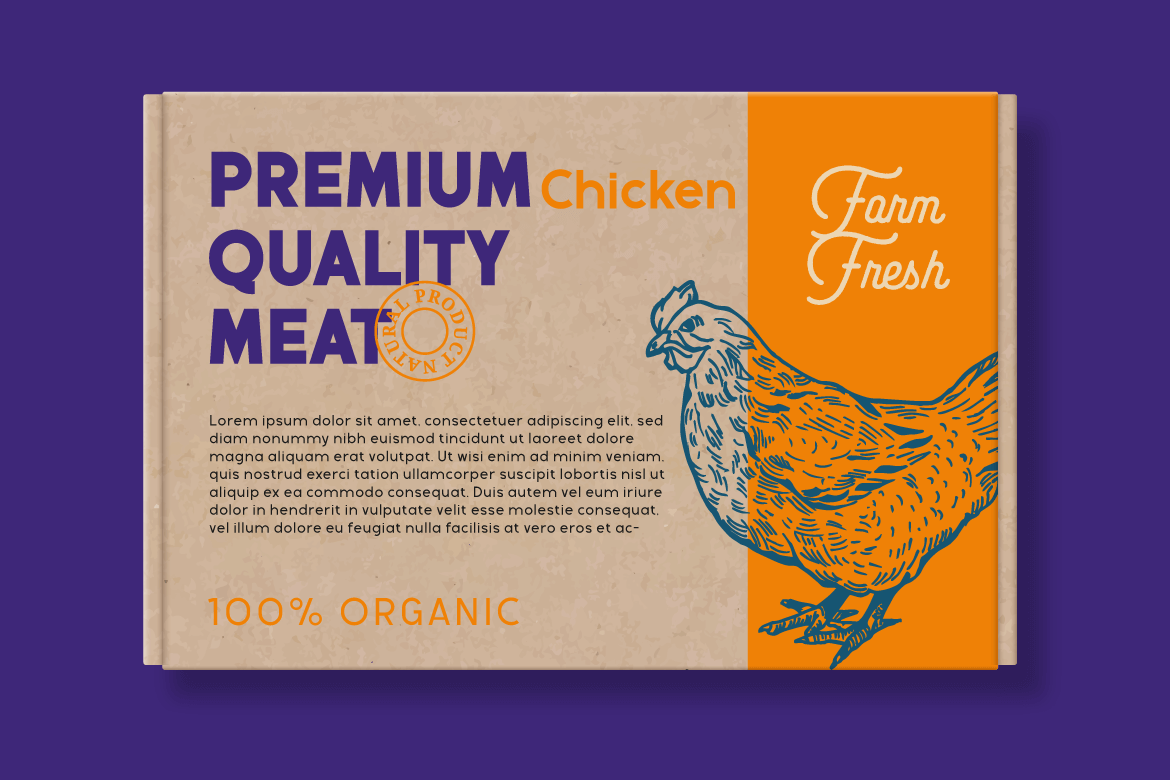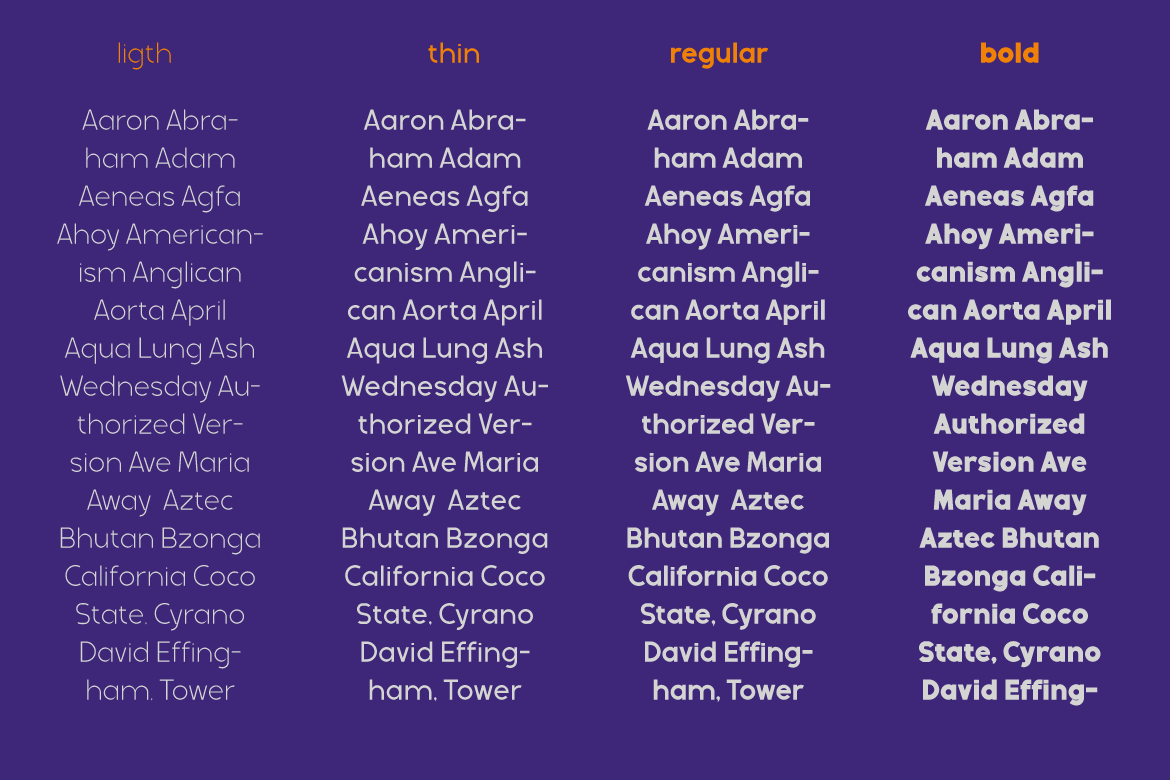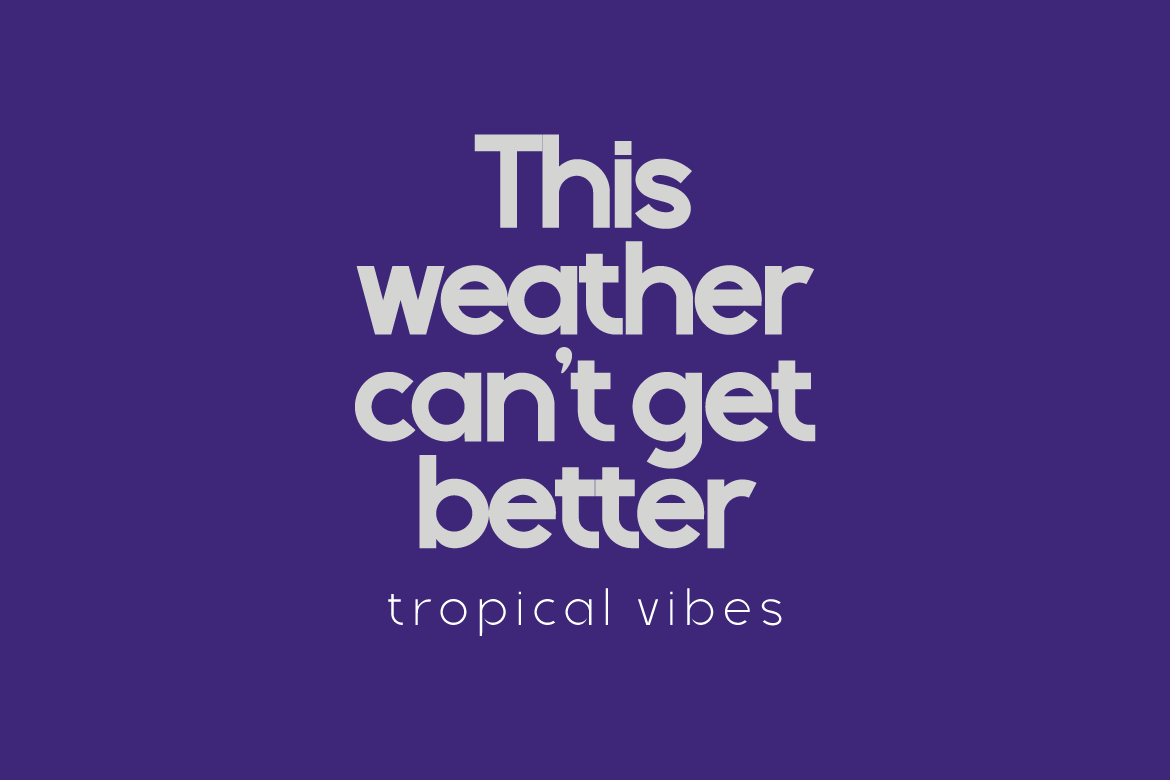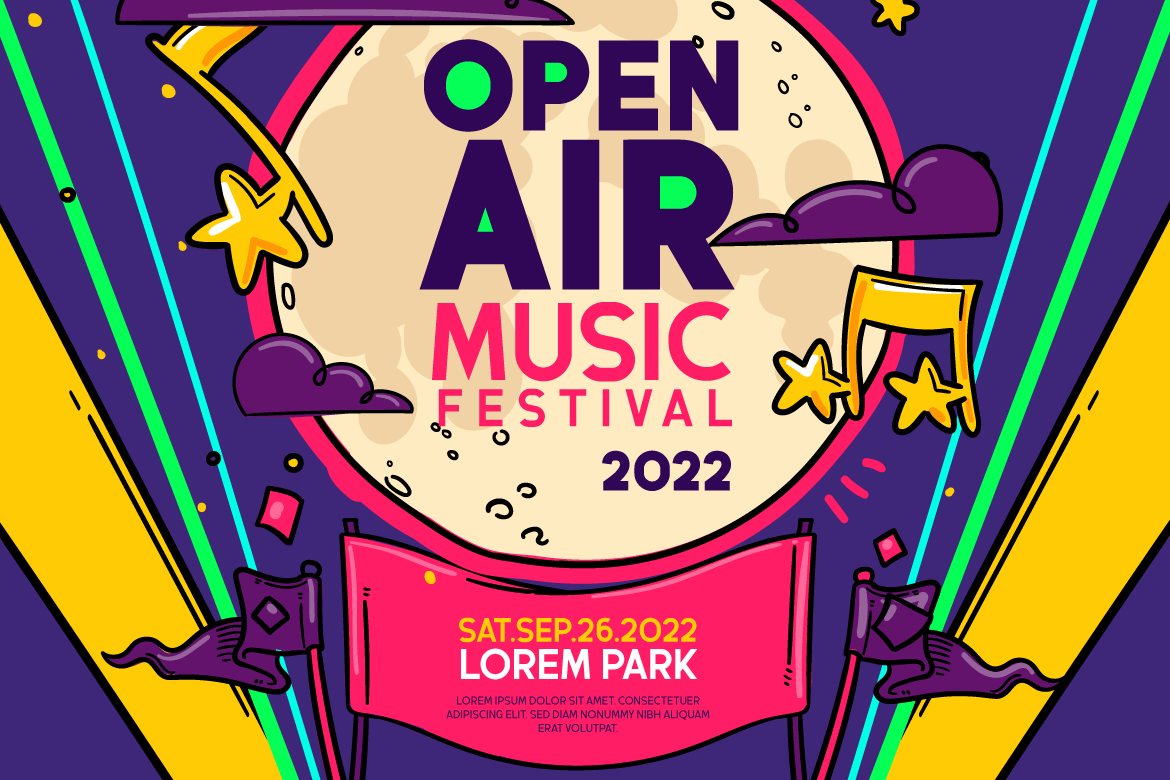
Miguna
Miguna is a san serif family with relaxed, clean, and charming characteristics.
its use is also very flexible and can be used for various design projects, both formal and informal, this font is really amazing. Miguna comes with alternatives from the thinnest to the thickest, helping you in creating titles and text.
This font is perfect for packaging, special moment events, branding, banners, posters, movie titles, food and beverages, quotes, clothing, logotypes, and more.